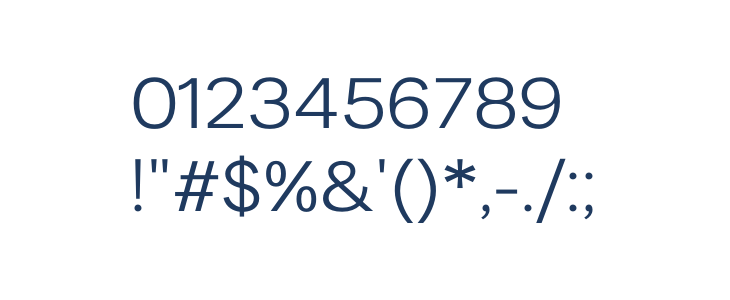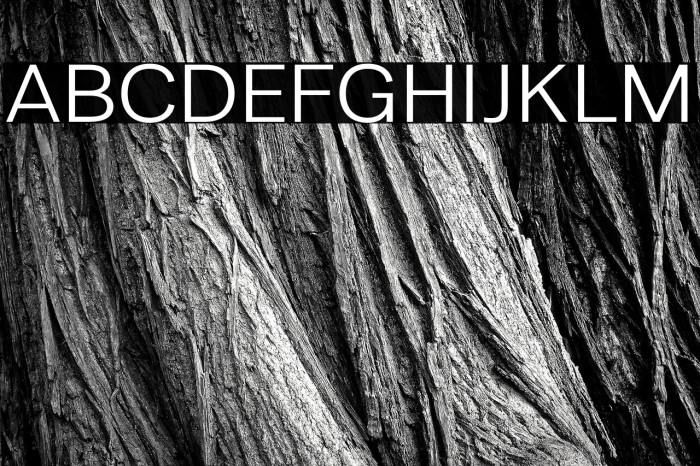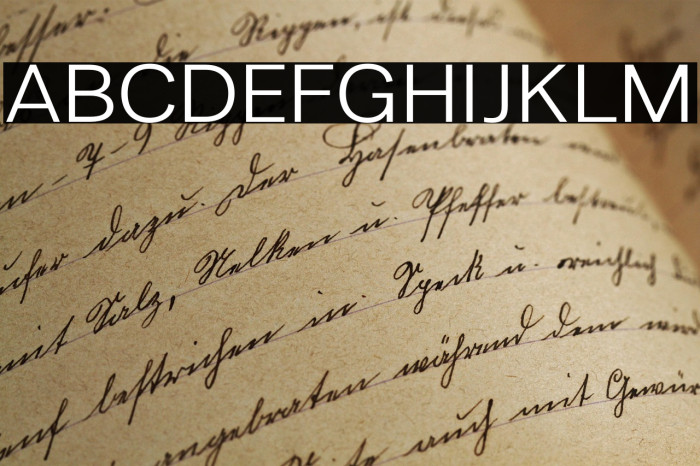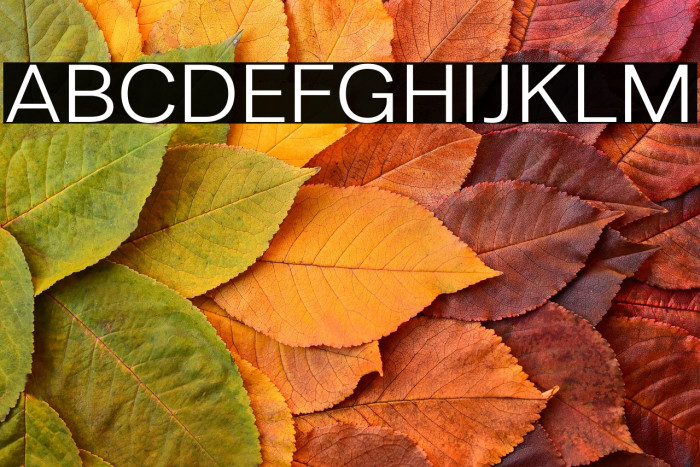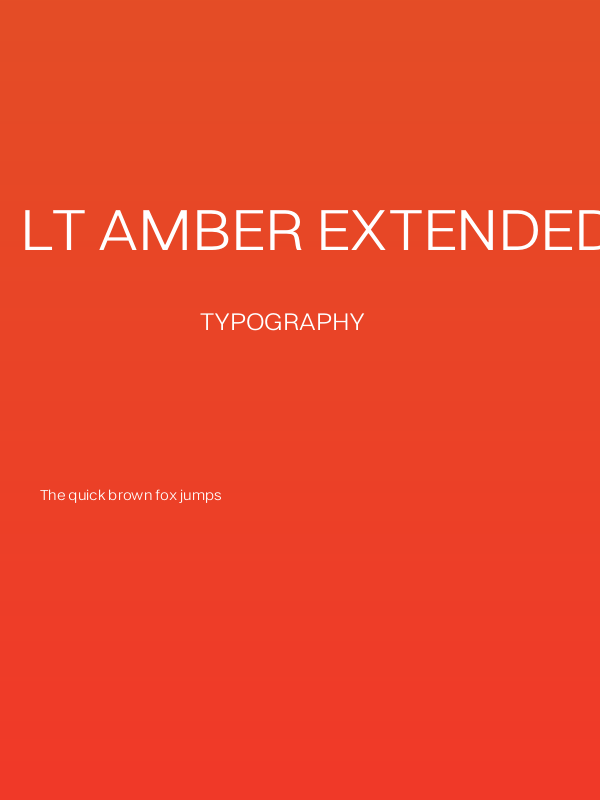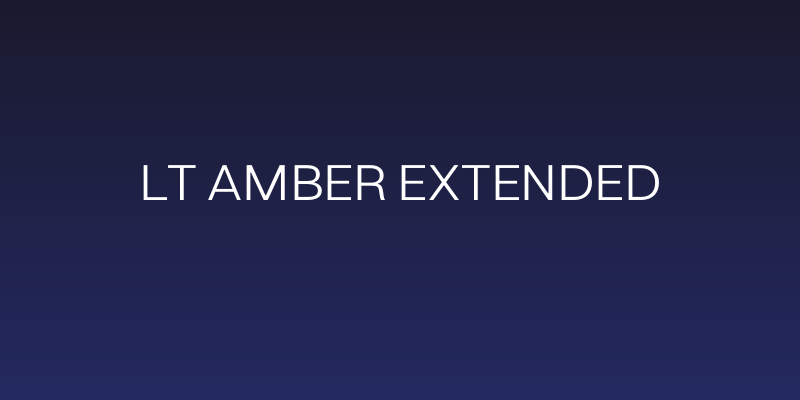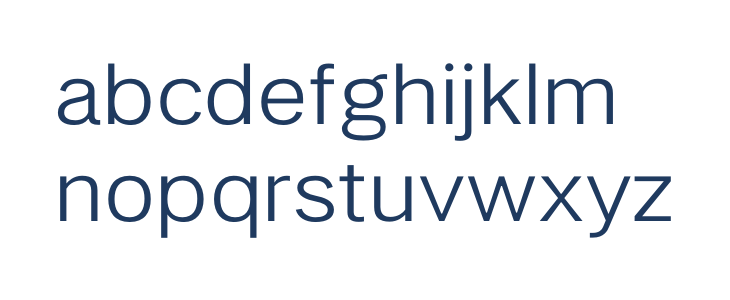
LT Amber Extended Font
LT Amber Extended Description
This font features a clean and modern sans-serif design with a focus on readability and simplicity. The characters are well-proportioned, with a uniform stroke width that gives it a balanced and harmonious appearance. The uppercase letters are bold and assertive, while the lowercase letters maintain a friendly and approachable feel. The numerals are clear and distinct, making them easy to read at various sizes. Special characters are included, providing versatility for different types of content. The overall design is sleek and professional, suitable for a wide range of applications.